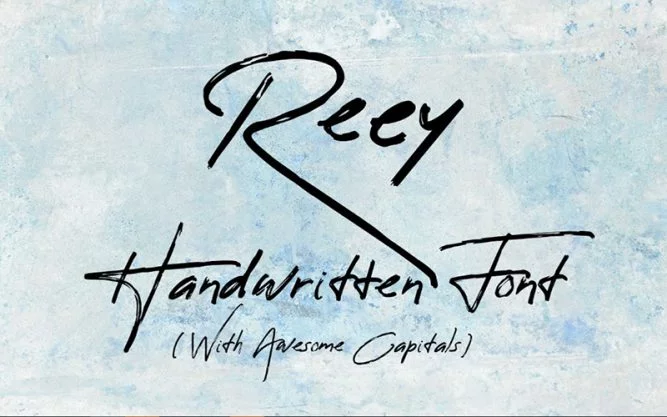
Reey Font is a free modern script hand-brush typeface. It was created and published by Koen van der Bliek primarily. It features a handwritten script texture made with a brush and ink.
The free typeface has come in a single regular weight having a unique and modern-day script type of calligraphy, in which the writing style is the most natural and attractive.
Reey typeface is ideal for many designing purposes such as perfect for fashion, trends blogs, e-commerce brands, flyers, signatures, typography design, great for branding, perfect for logos, and any business that wants written communication.
It is a handcrafted script font designed to personalize many different applications and styles. Reey font includes numerals, a complete set of uppercase or lowercase, accents, and symbols and is available on anchor fonts.
It is an elegant flowing script font designed to help you speed up your design process and speed up your projects and has different letters that will best for display purposes and immediately see the great result.
This is a modern hand brush typeface with more variations stylistic sets and different features. We have designed this font with an incomplete flow that will give your text a unique and modern look.